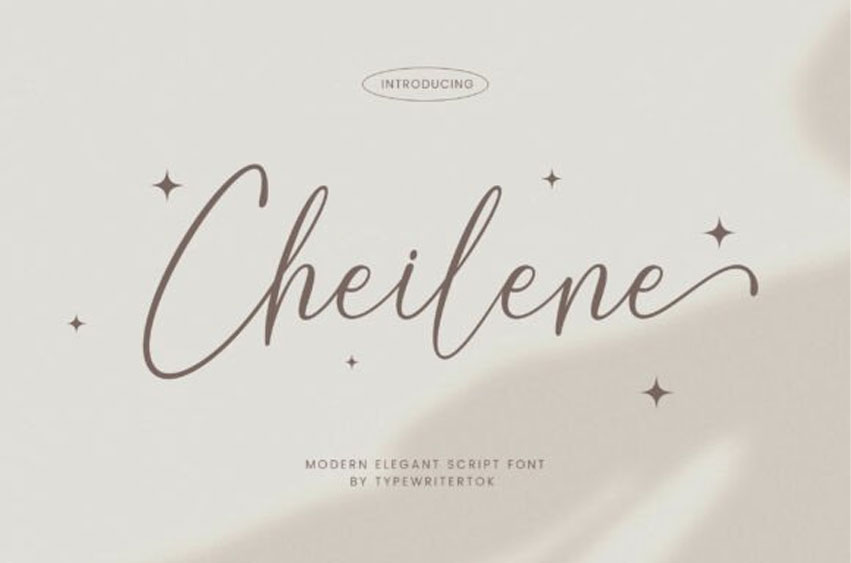
Cheilene Font is an elegant script font that exudes sophistication and charm.
With its flowing strokes and graceful letterforms, this font is perfect for wedding invitations, luxury branding, fashion editorials, beauty product packaging, greeting cards, and high-end stationery. Elevate your designs with the timeless elegance of Cheilene.